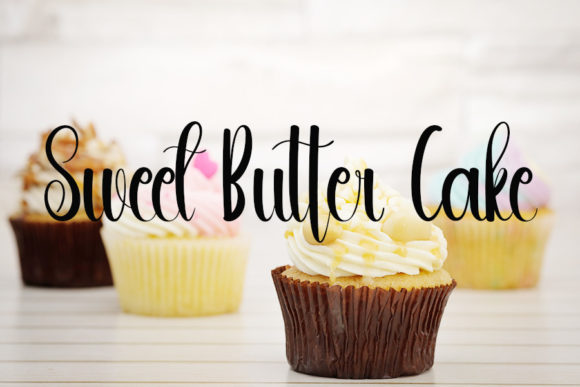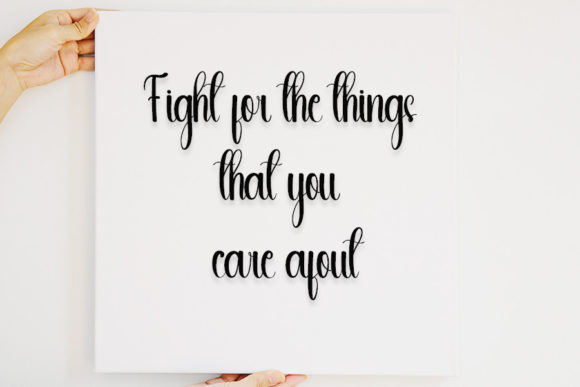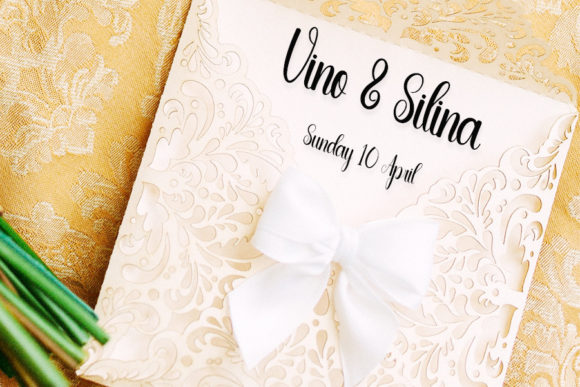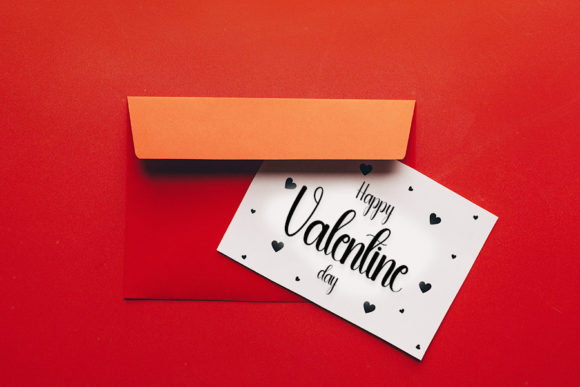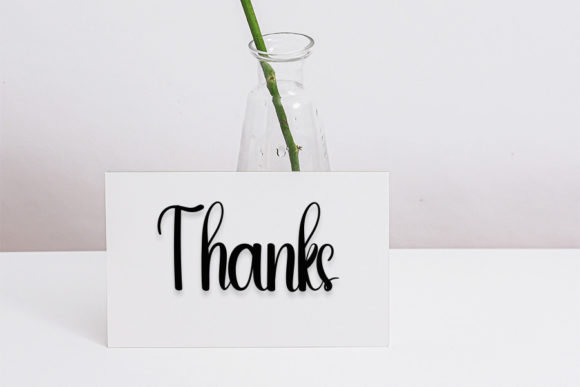
Introduction to Always Butter Font
One such game-changer is the Always Butter Font, a friendly handwritten font that’s quickly becoming a favorite among designers. With its classy calligraphic influences and contemporary feel, it’s the perfect addition to any creative project. Whether you’re working on a branding project or a social media campaign, Always Butter Font is sure to bring a touch of elegance and sophistication to your design.
Always Butter Font Key Features
- High-quality, elegant script font suitable for creative projects, making it a valuable design resource.
- Designed with a unique, hand-drawn feel, adding a touch of personality to any creative project.
- Includes a wide range of glyphs and characters, making it suitable for both personal and professional use.
Honest Review: Always Butter Font
As a designer, I’m always on the lookout for high-quality design resources to elevate my creative projects. Recently, I stumbled upon the Always Butter Font, and I’m excited to share my honest review with you.
- ✨ Beautifully crafted letters with a smooth, rounded feel that’s perfect for modern designs.
- ✨ A wide range of weights and styles to choose from, making it easy to customize for various design needs.
However, I do have some concerns:
- ⚠️ Limited support for non-Latin languages, which might be a drawback for international designers.
- ⚠️ Some users might find the font too playful or casual for more formal designs.
Overall, I think the Always Butter Font is a solid addition to any designer’s toolkit. Its high-quality design and versatility make it a great resource for creative projects. While it may have some limitations, it’s still a worthwhile download for designers looking for a modern, playful font.
The Always Butter Font is ideal for creative projects such as social media graphics, blog posts, and advertisements. Its high-quality design and transparent background make it a great choice for overlaying text on images. You can also use it in branding materials, such as business cards and letterheads, to create a unique and memorable look.